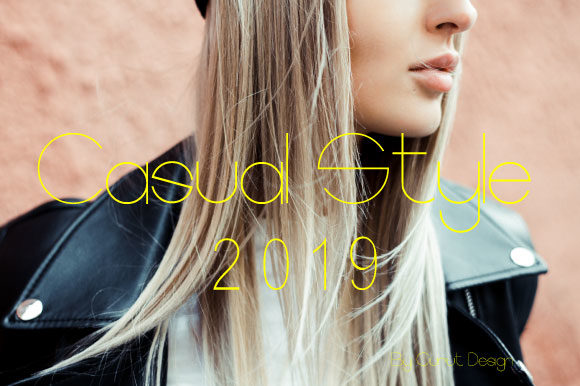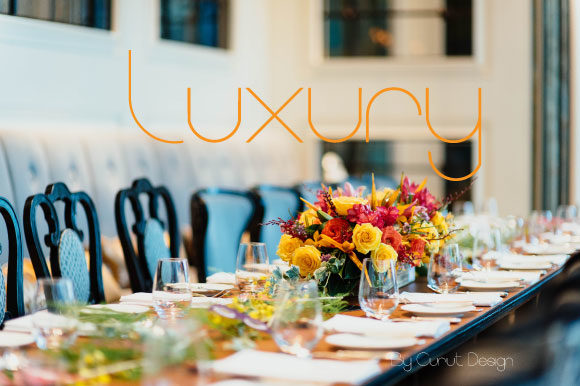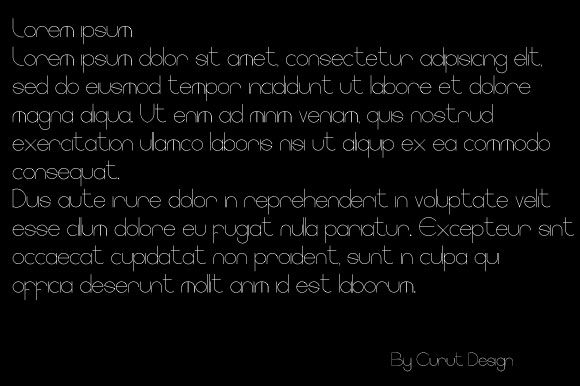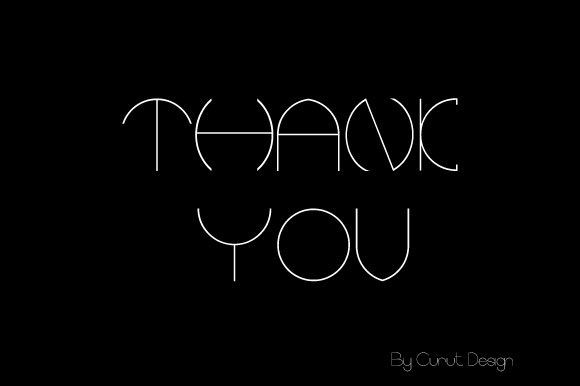
Introduction to Manukhodia Font
With its futuristic spacing and thin lettering, Manukhodia delivers an extraordinary font experience.
Key Features of Manukhodia Font
Why Choose Manukhodia Font?
Manukhodia Font offers exceptional quality and versatility, making it a valuable addition to your design toolkit. Whether you’re creating for personal projects or commercial use, Manukhodia Font delivers professional results.